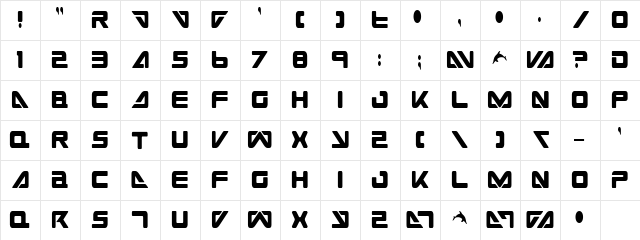
Sea Dog 2001 Condensed Condensed
| Designer | Dan Zadorozny |
Design Context for Sea Dog 2001 Condensed Typeface
Sea Dog 2001 Condensed is a composed and adaptable typeface that performs quietly and consistently across a wide range of design contexts. The condensed width makes it efficient for tight spaces without sacrificing legibility.